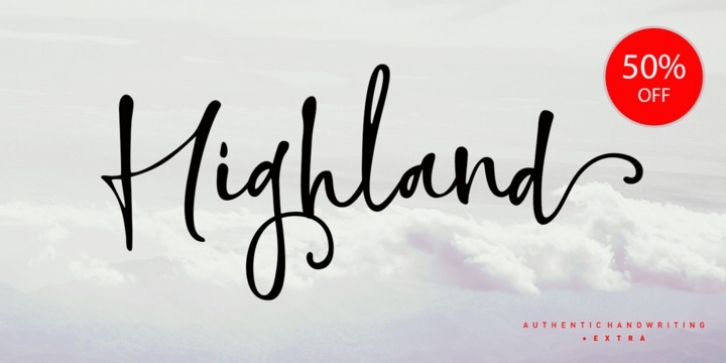
Highland Script was designed by Ambia and published by Areatype. Highland Script contains 2 styles and family package options.
Highland Script is a lovely, modern calligraphic script. It features dynamic and pretty swashes and can be used for many purpose, such as titles, signatures, logos, wedding invitations, letterhead, signage, labels, newsletters, posters, badges, etc.
Highland Script features OpenType, including the initial and terminal letters, ligatures and International support for most Western languages ​​included.